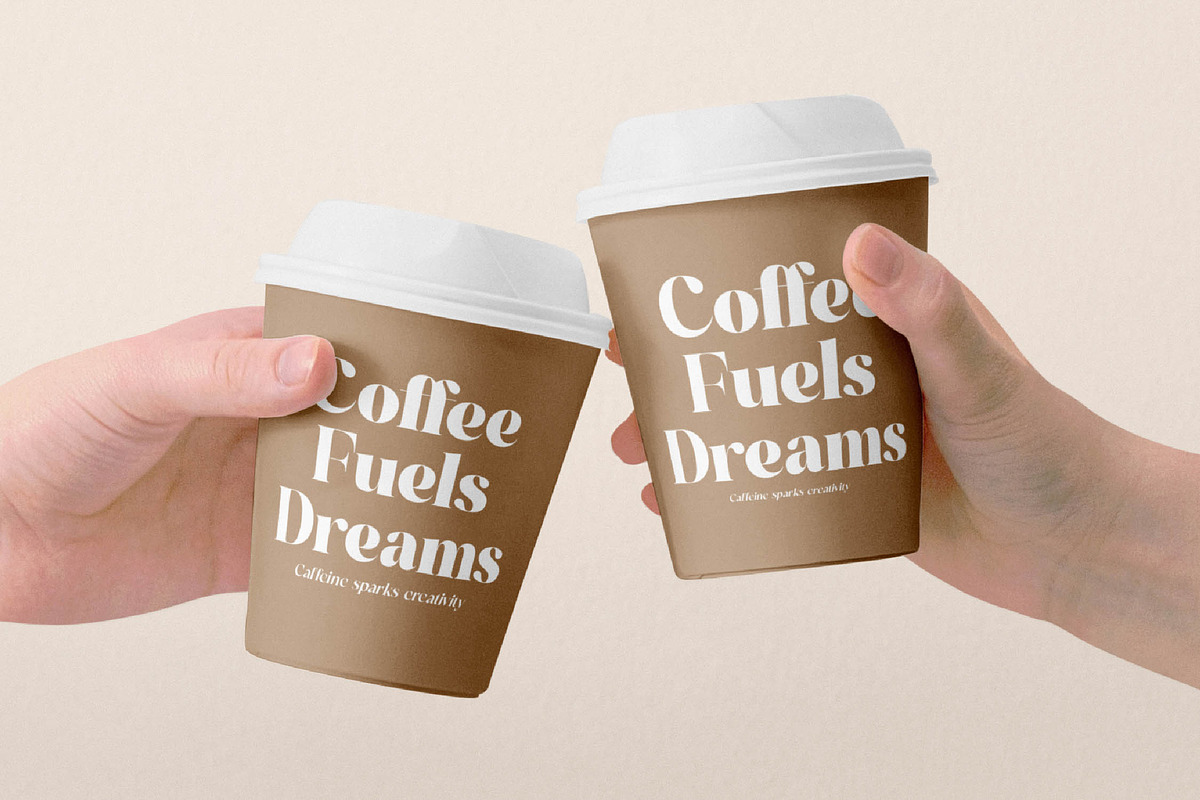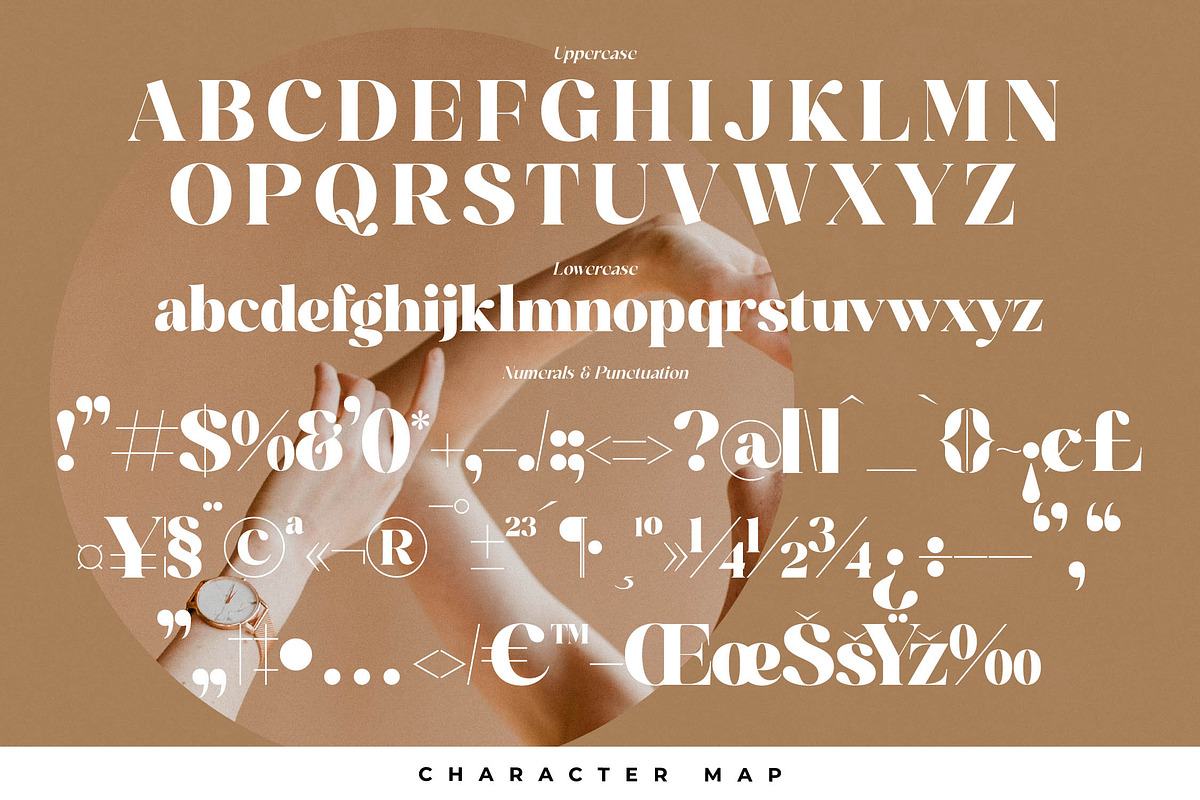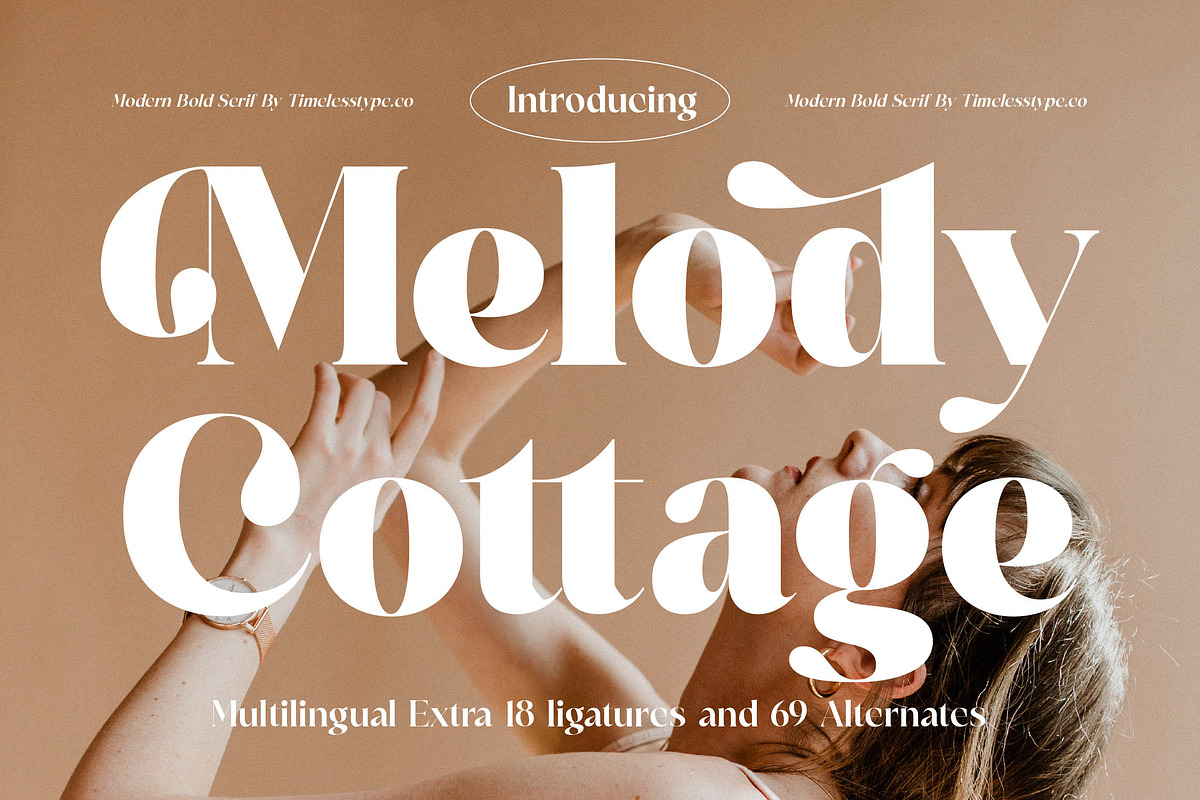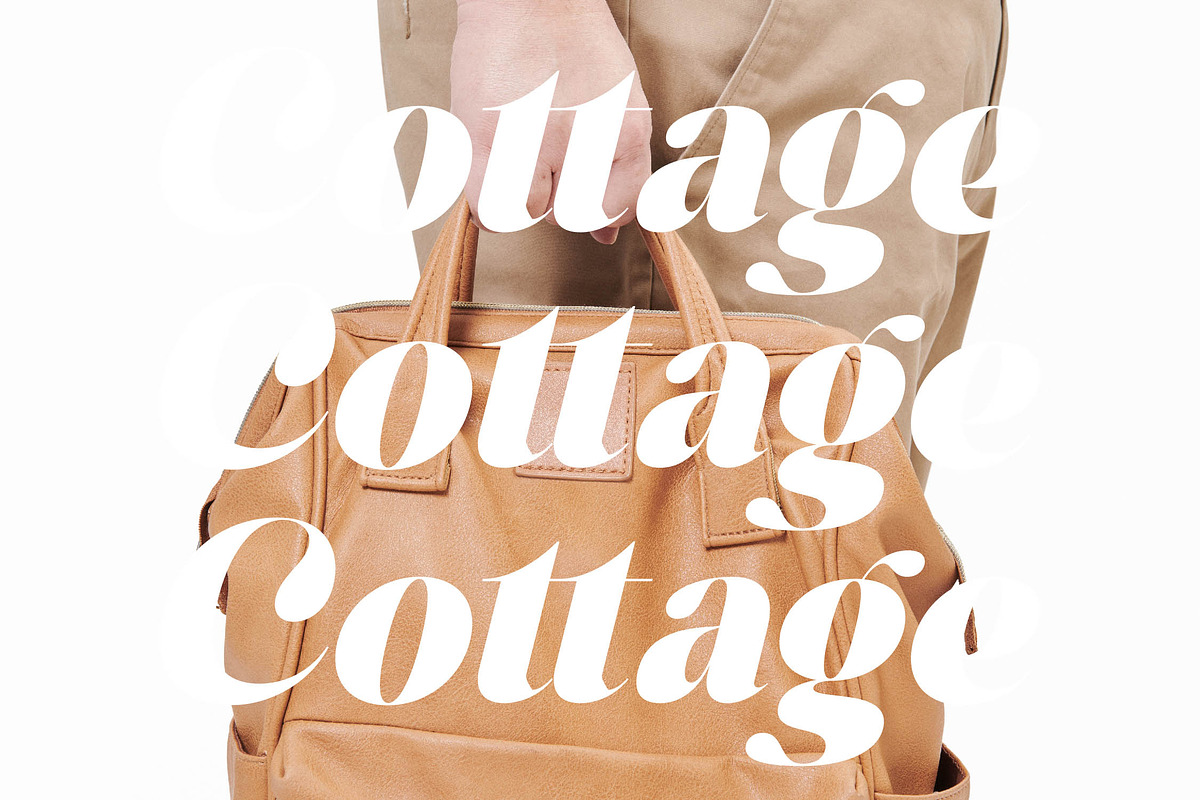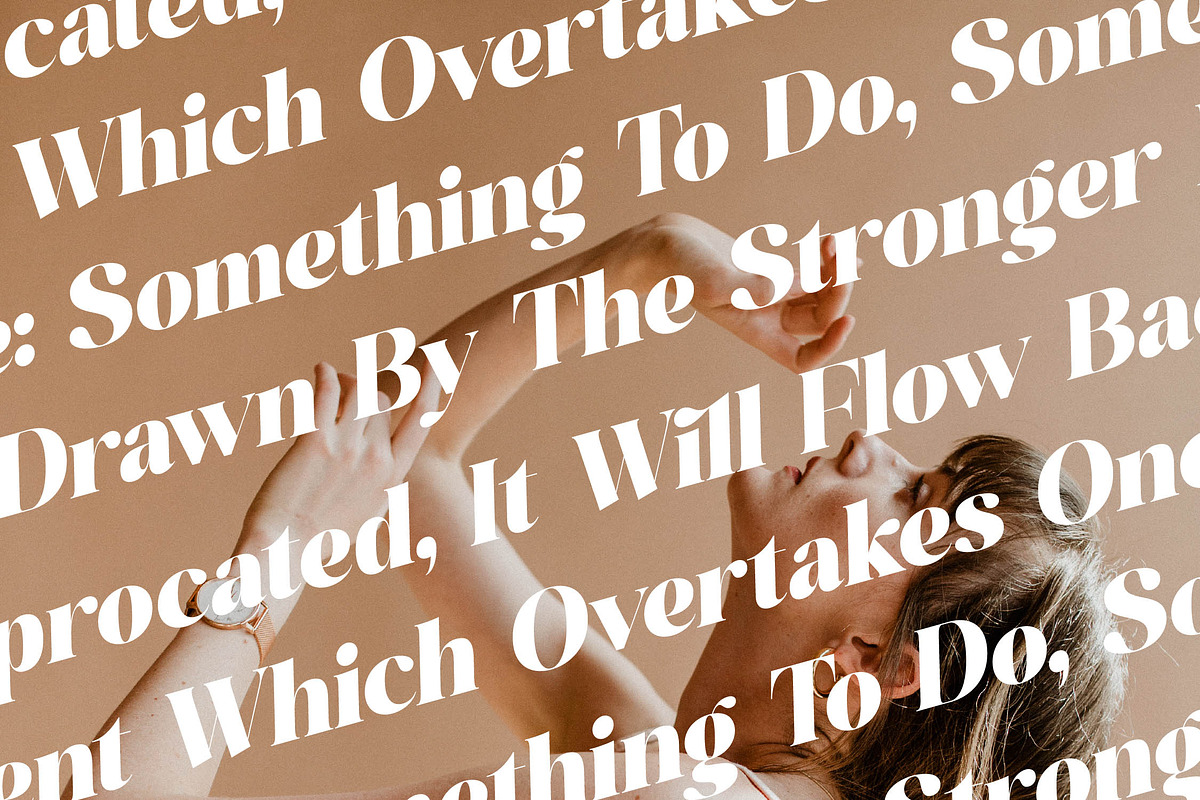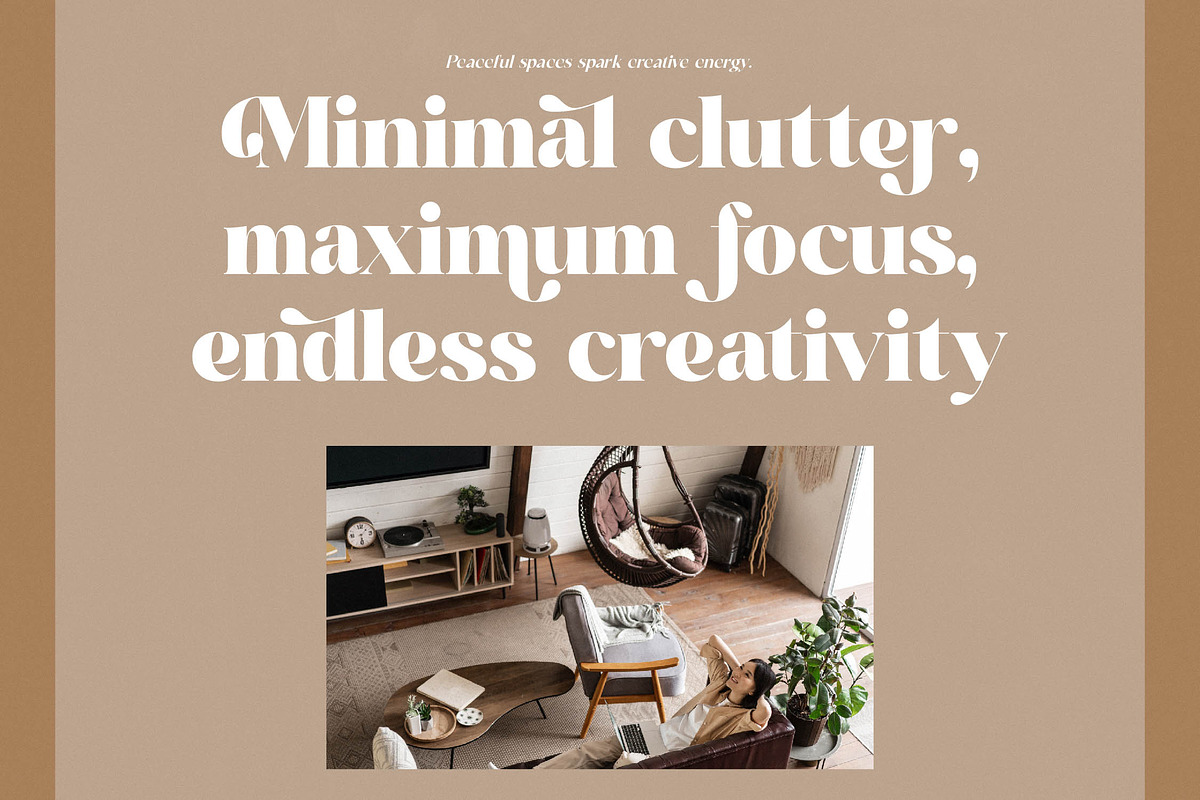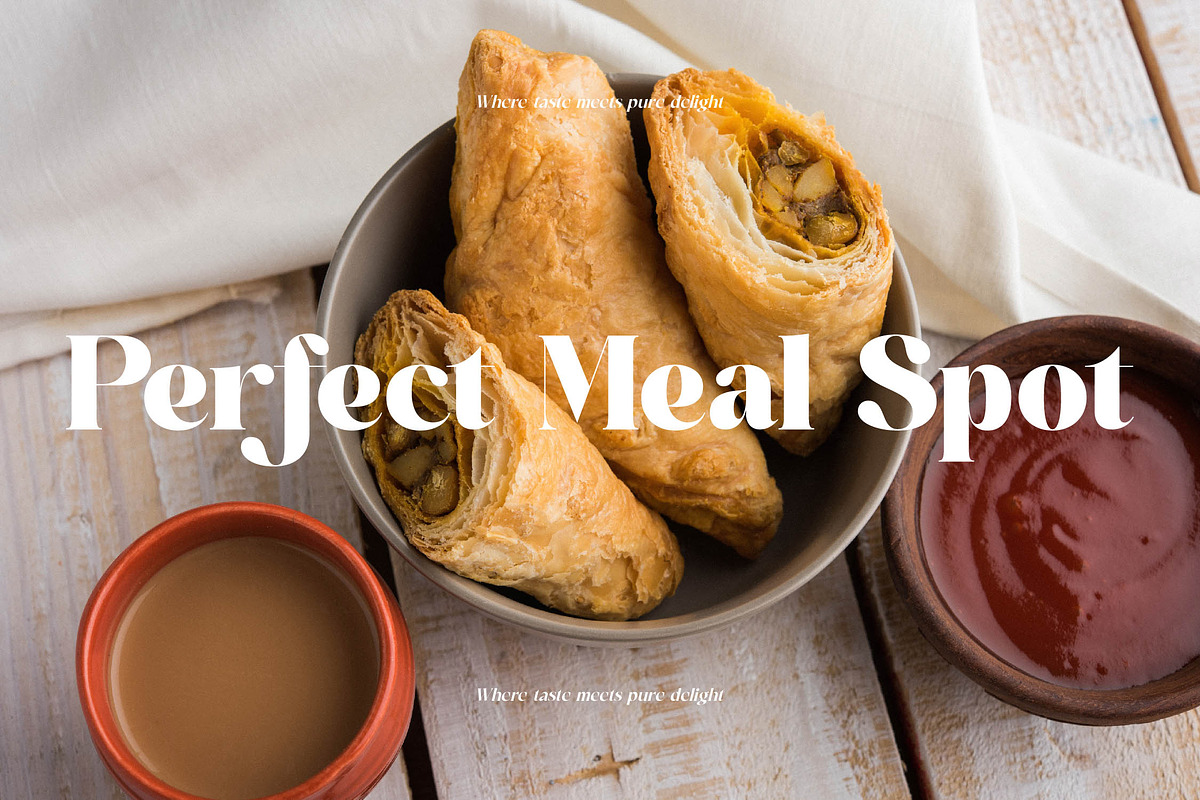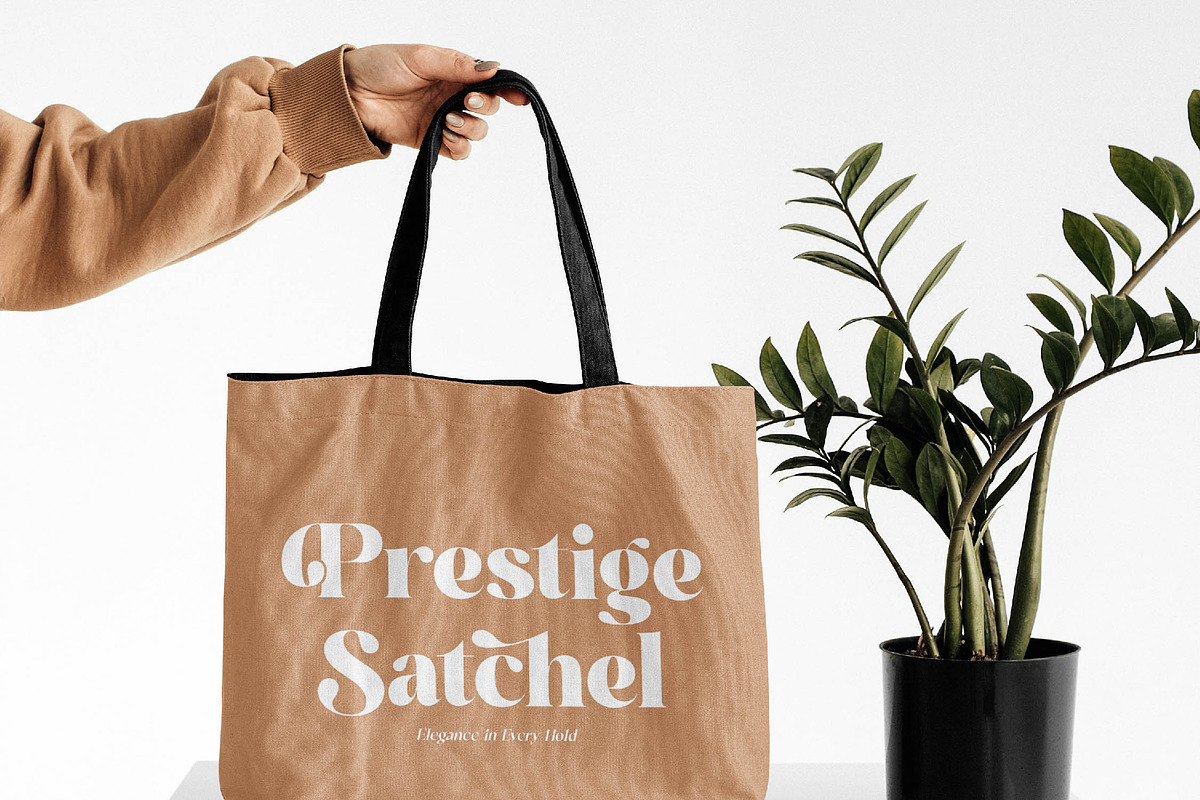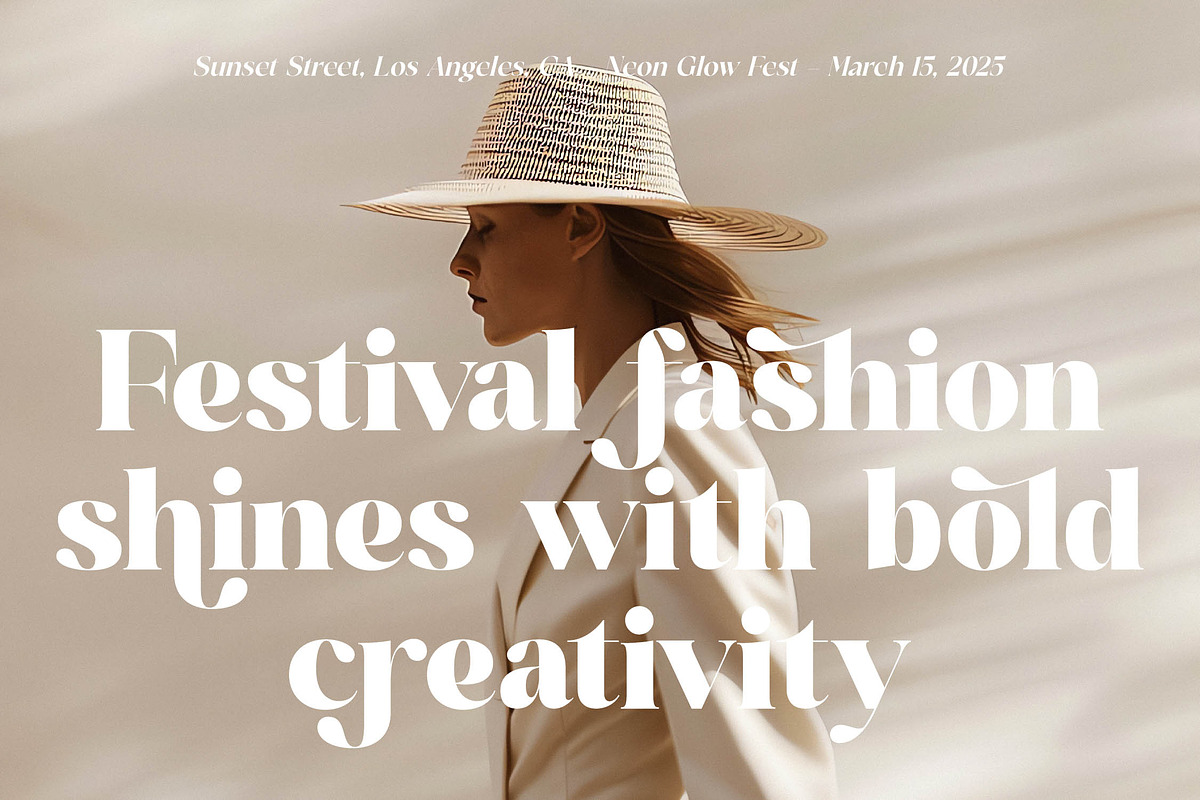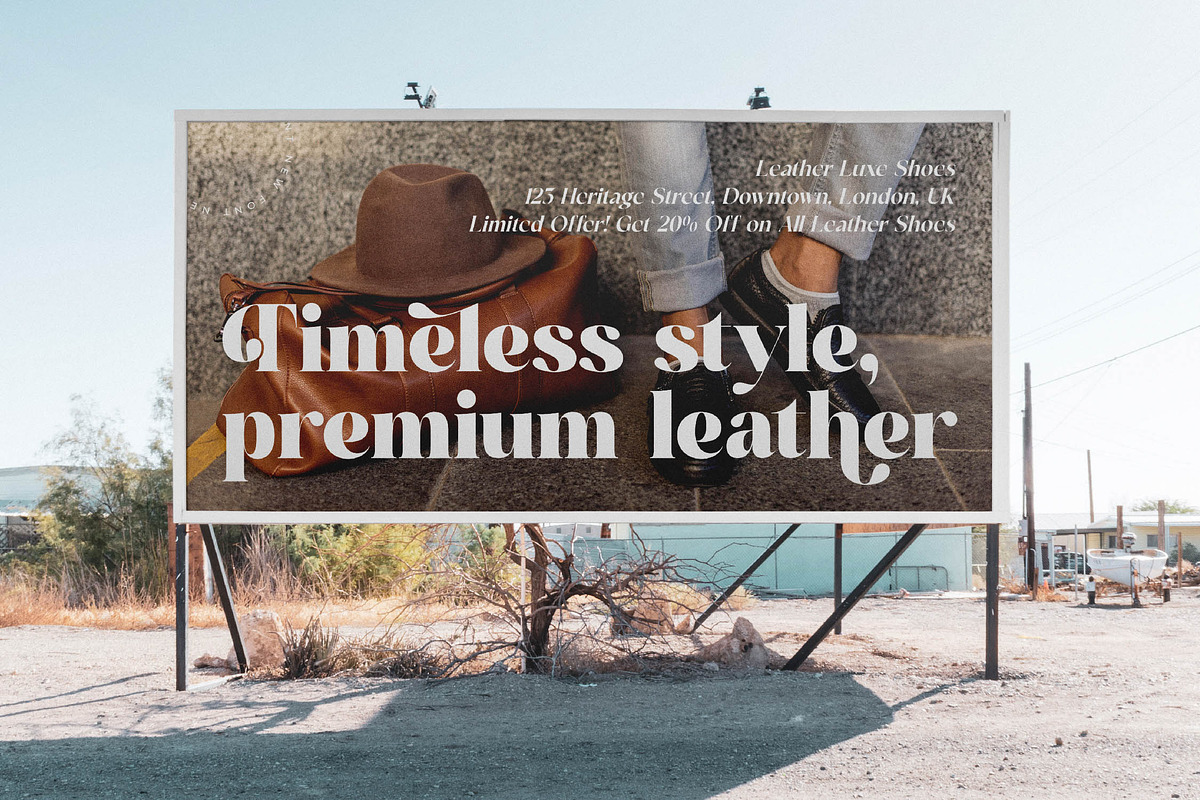
Melody Cottage Modern Bold Serif
Embrace the soft whispers of elegance with Melody Cottage, a typeface that turns every word into a masterpiece of sophisticated design. It is the perfect bridge between classic heritage and the bold demands of the modern creative era.
Drawing inspiration from the high-fashion editorial spreads of the late 20th century and the serene atmosphere of a boutique cottage, this typeface radiates a sense of curated luxury. It embodies a visual story of elegance that is both nostalgic and strikingly current.
This modern serif display is defined by its masterful balance of weight, making it a premier choice for luxury typography projects. Its status as a high-contrast serif ensures it functions perfectly as a lead editorial font with significant branding impact.
Perfectly aligned with the current modern serif trend, this typeface meets the demand for high-quality editorial display fonts. It provides designers with character-driven typography that adds a unique personality to every headline and layout.
Engineered for versatility, it excels in logo design and high-end branding systems where distinction is key. From sophisticated editorial work and bespoke packaging to romantic wedding stationery and luxury fashion campaigns, its application is limitless.
To ensure complete creative freedom, the package includes an extensive library of ligatures and alternates alongside decorative swashes. With full multilingual support and international characters, it is ready for global design challenges.
- Ligature 18 Alternate 69